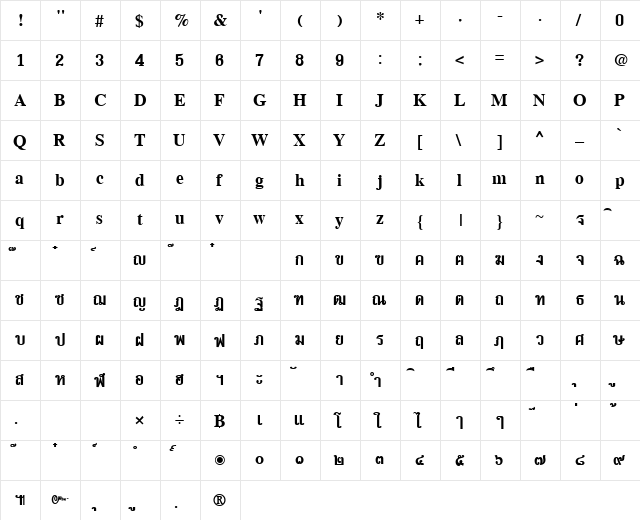
PSL-ThaiCommon Bold
Design Context for PSL-ThaiCommon Typeface
PSL-ThaiCommon is a composed and adaptable typeface that performs quietly and consistently across a wide range of design contexts. Its bold stroke weight gives it real presence on the page.